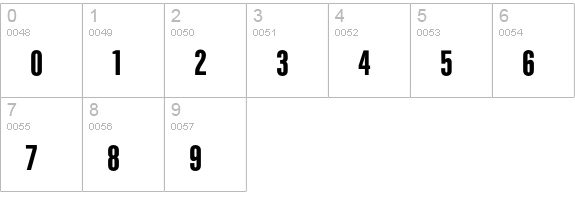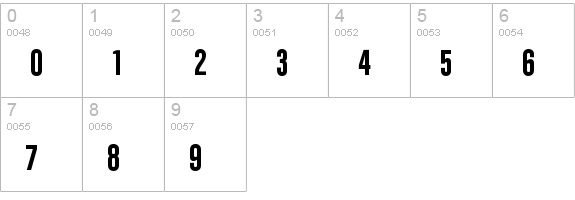
FolioEF-ExtraCondensed Font Details
FolioEF-ExtraCondensed is a sleek and modern typeface that exudes sophistication and elegance. Its extra condensed design makes it perfect for conveying a sense of efficiency and professionalism in various design projects. With its clean lines and sharp angles, this font commands attention and adds a touch of contemporary flair to any layout. What sets FolioEF-ExtraCondensed apart is that it is available for free download at FontsMarket.com. This means that designers, creatives, and enthusiasts alike can easily access this high-quality font without any cost involved. Whether you're working on branding materials, editorial layouts, or web designs, FolioEF-ExtraCondensed is a versatile choice that will elevate your projects to the next level. Embrace the power of typography with FolioEF-ExtraCondensed and bring a touch of sophistication to your designs today. Download this exceptional font for free at FontsMarket.com and unleash your creativity with this stylish and impactful typeface.